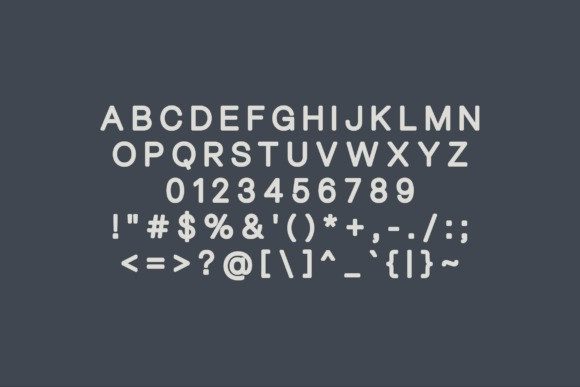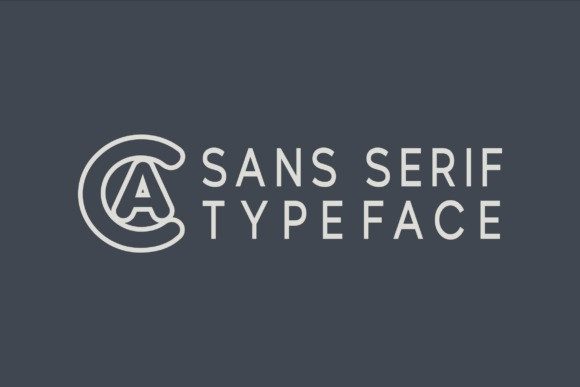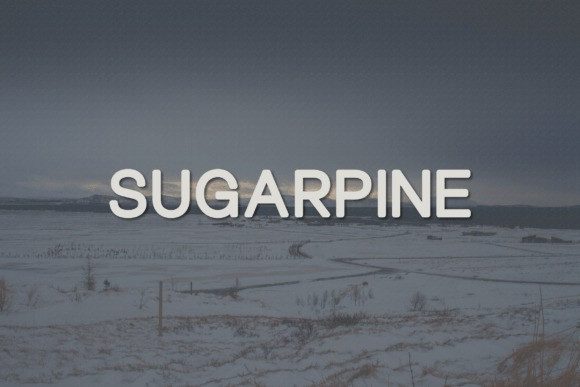
Sugarpine Font
Sugarpine Font is a clean, minimalist sans-serif font designed with clarity and versatility in mind.With its soft curves, balanced proportions, and modern simplicity, Sugarpine is a go-to typeface for professional and contemporary projects. It features all-uppercase letters, numerals, and essential punctuation—making it ideal for logos, headlines, branding, editorial design, and digital content that demands a polished look.
The rounded terminals add a subtle warmth, giving the font a friendly yet refined tone.
Whether you’re working on web layouts, product packaging, or signage, Sugarpine maintains legibility while delivering a sleek and timeless aesthetic. Its neutrality allows it to pair well with other fonts or stand confidently on its own. Clean, modern, and stylish—Sugarpine is built for design that speaks with quiet confidence.